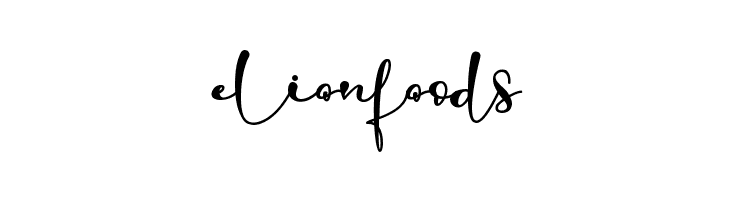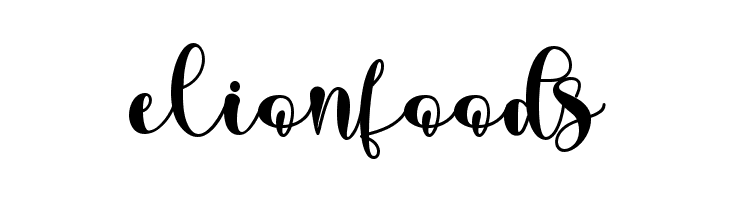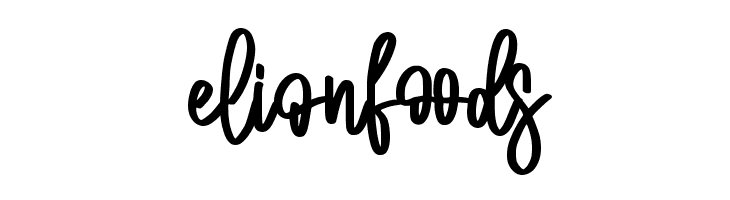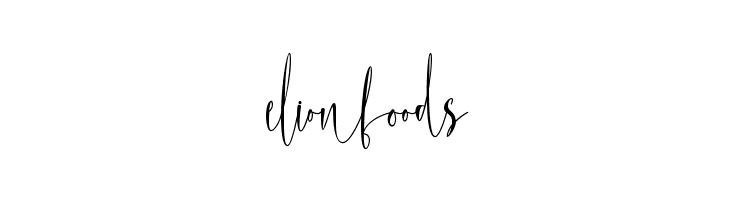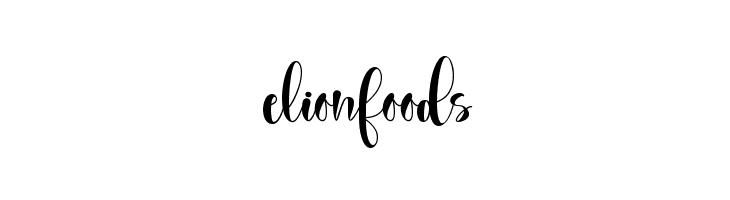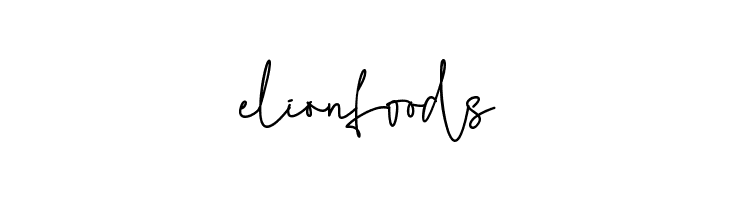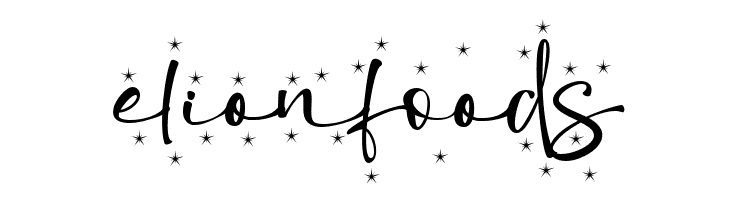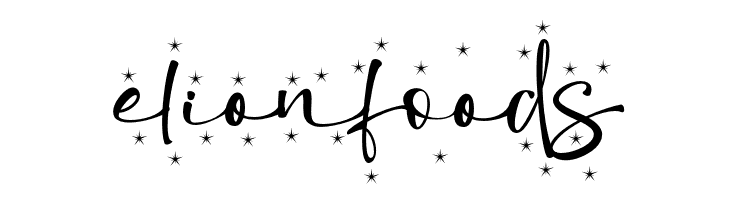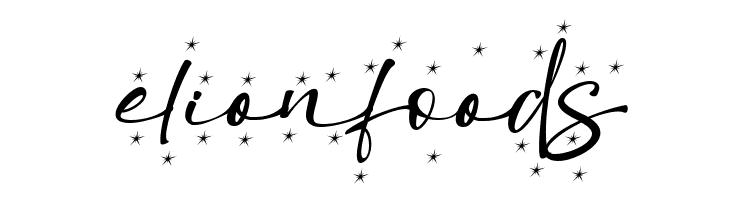
A whimsical, cursive font with elegant curves and artistic flair.
A playful and elegant script font with a handwritten style.
A playful and energetic handwritten font with bold, fluid strokes.
A whimsical and flowing script font with elegant, elongated letterforms.
An elegant script font with intricate swirls and flowing design.
A modern, elegant script font with a handwritten style and dynamic strokes.
A cursive, handwritten-style font with elegant, flowing characters.
A festive, star-adorned script font with a playful, hand-drawn style.
A playful, handwritten font with snowflake-like star embellishments.
A festive, italicized handwritten font with snowflake embellishments.